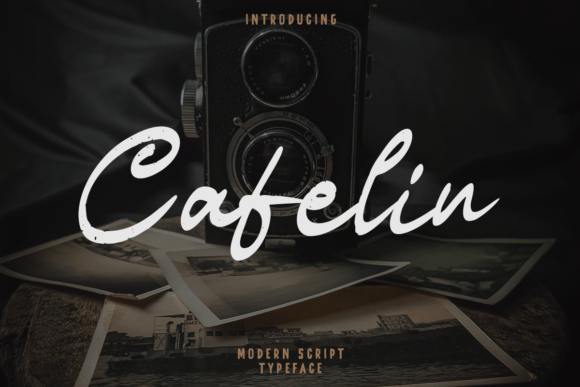
The Magic of Cafelin Font: Unleashing Your Creativity
Do you remember the feeling of excitement when you finally find the perfect font to bring your creative idea to life? The thrill of scrolling through font libraries, searching for that elusive combination of style and elegance that makes your project stand out. It’s a moment of pure joy, and for designers, it’s a game-changer.
Meet Cafelin Font, a magical script font designed to add a touch of sophistication to any project. Whether you’re a seasoned designer or a DIY enthusiast, this font is the perfect companion for turning your creative ideas into stunning works of art. With its elegant curves and refined style, Cafelin Font is the ultimate tool for anyone looking to elevate their designs and leave a lasting impression.
Cafelin Font Key Features
- Unique Characteristics: The font features a unique blend of modern and vintage elements, with intricate details and subtle textures that add depth and visual interest.
Cafelin Font Review
I recently had the chance to work with the Cafelin font, and I must say it’s a unique addition to any design project. ✨ Here are some of the things that caught my attention.
- ✨ The Cafelin font has a beautiful, elegant feel to it. It’s perfect for creating a high-end or luxurious atmosphere in your designs.
- ✨ The font is highly customizable, making it easy to adjust to different font sizes and styles.
- ✨ The Cafelin font also supports a wide range of languages, making it a great option for global projects.
However, as with any font, there are some limitations. ⚠️ Here are a few things to consider:
- ⚠️ The Cafelin font may not be the best option for body text, as it can be a bit difficult to read at smaller font sizes.
- ⚠️ The font also has a bit of a limited character set, which may not be ideal for projects that require a wide range of special characters.
Overall, I think the Cafelin font is a great addition to any design project. While it may have some limitations, its unique feel and high level of customization make it a great option for creating eye-catching designs.
Cafelin Font: A Practical Application Guide
The Cafelin Font is ideal for creative projects that require a unique and stylish font. Some common use cases include:
- Interior design and architecture
- Artistic and creative projects
To get the most out of the Cafelin Font, experiment with different font sizes and styles to create visually appealing designs.